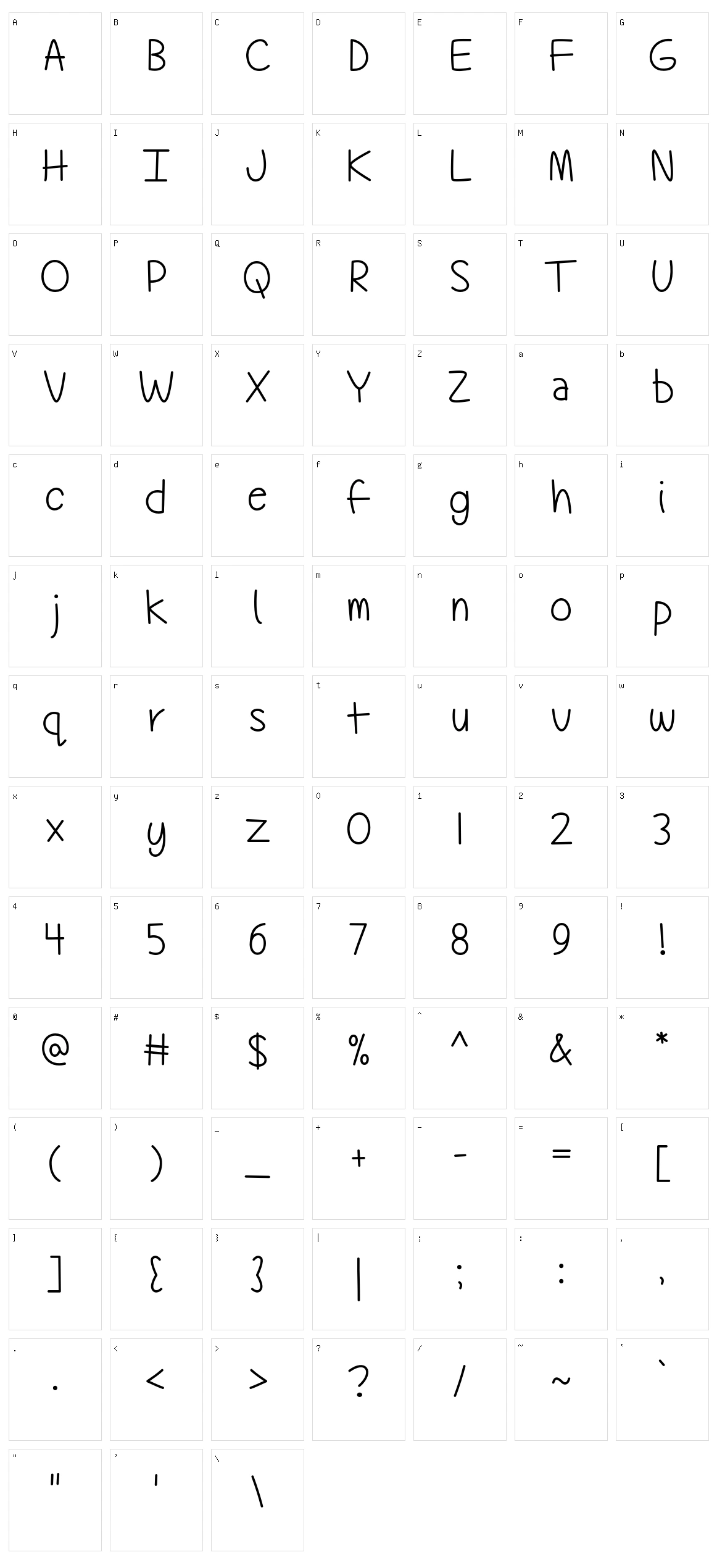
The free font Technically, But Not Actually is carefully designed by Misti's Fonts, showcasing a thoughtful balance of creativity and usability and falls under the Script font style. When you download the ZIP file, it contains only 117.59 KB of font files, making it lightweight and quick to download. Please review the license details below to understand permitted usage and distribution rights. If license information is not available, we recommend using this font for personal projects only or contacting the author directly for commercial usage permissions.